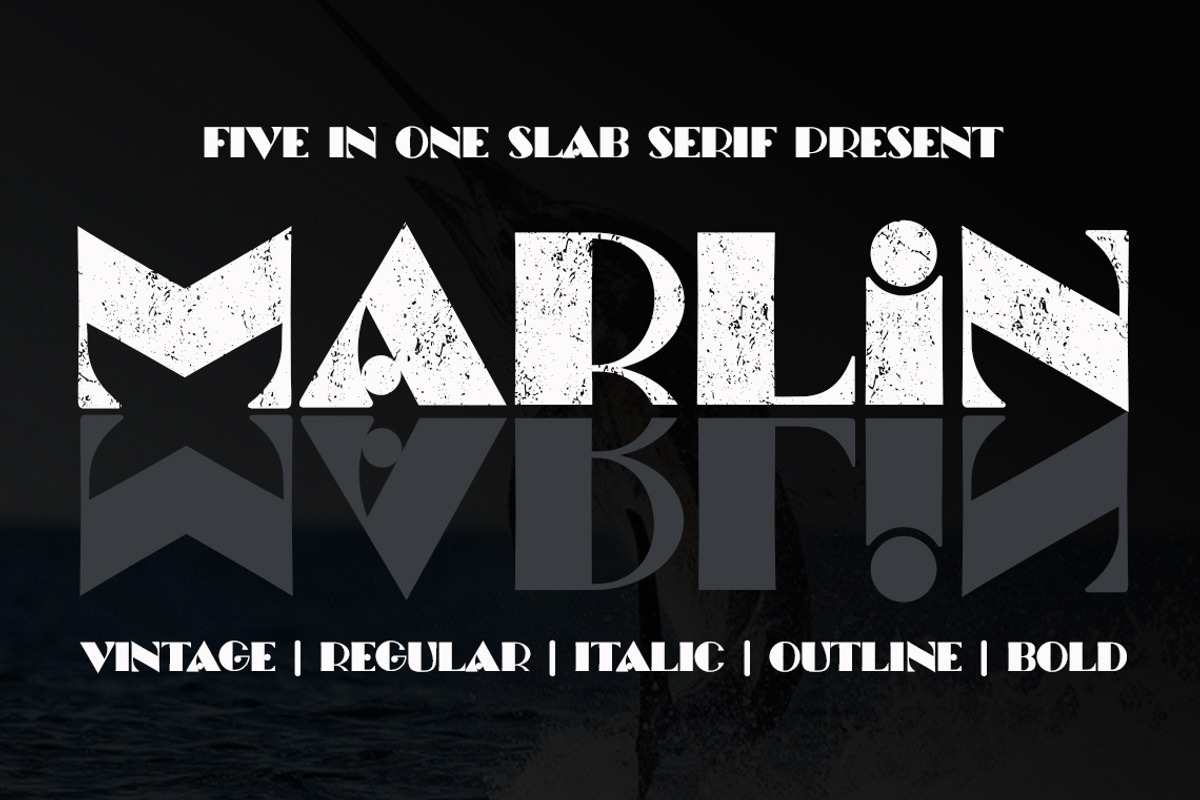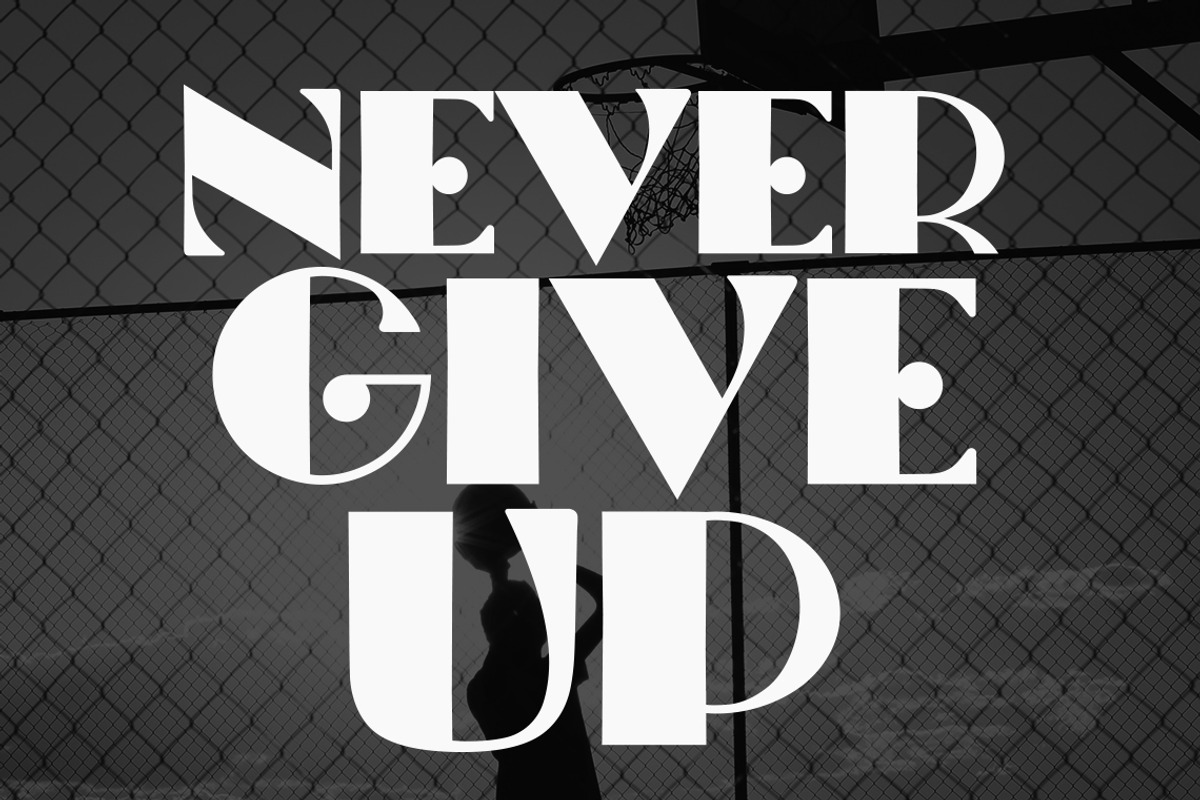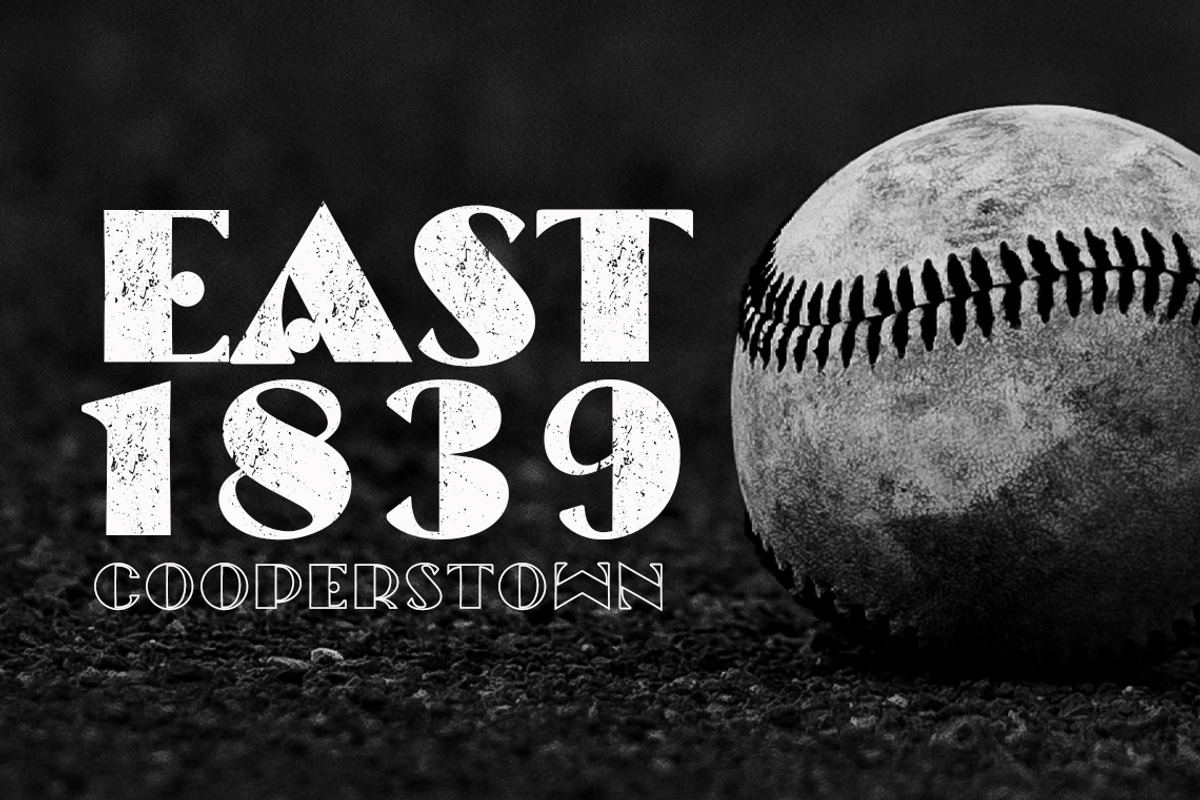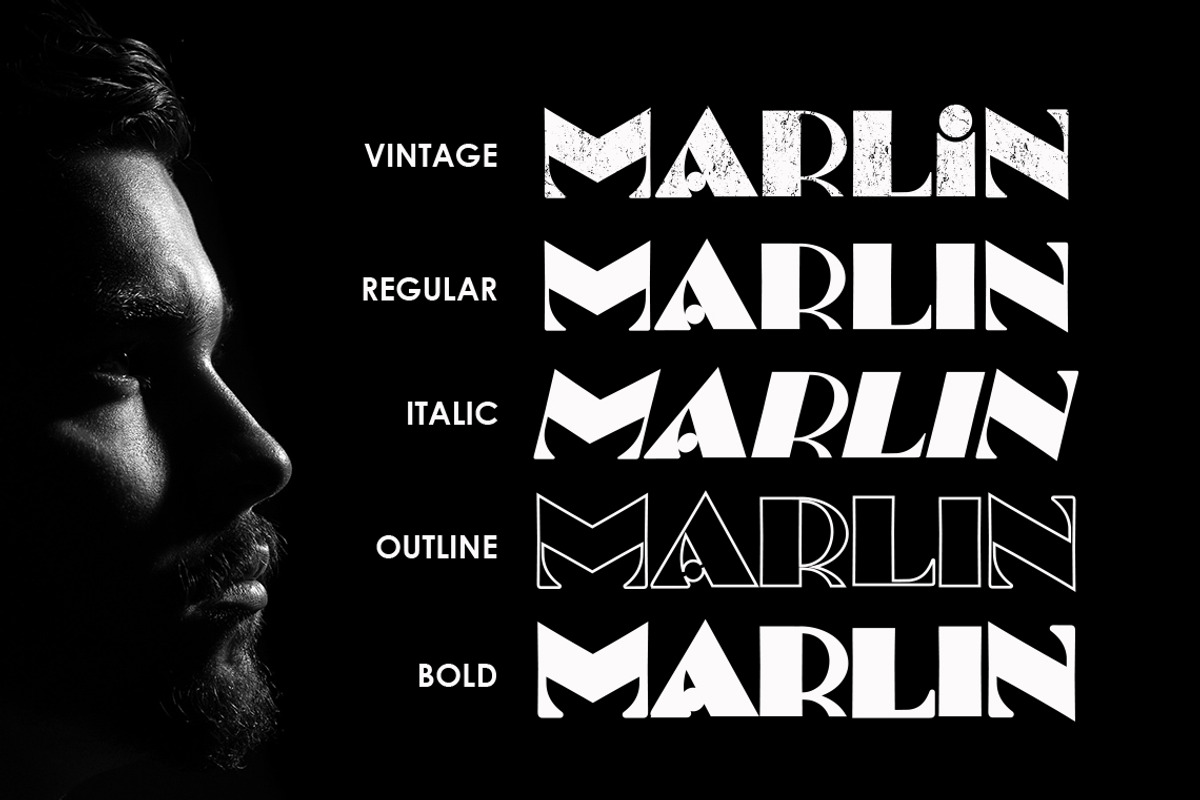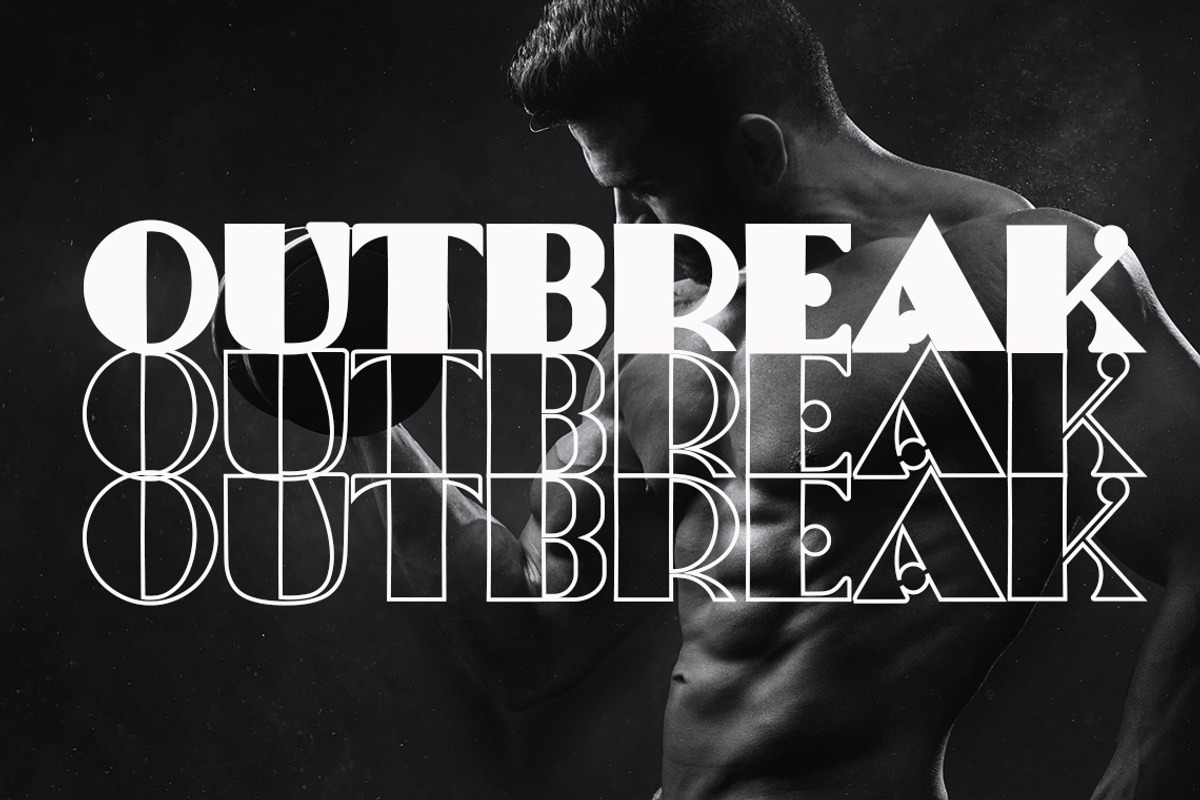
Marlin
Marlin slab serif inspired by marlin fish. Marlin font is a bold serif sporty design, vintage style with a touch of vintage style. There are 5 different styles that you can apply in your design projects. This font is built with solid foundations, strong visuals, old-school movement, and a modern minimalist style. Marlin is perfect for Jersey , athletic, poster, branding projects, Logo design, Clothing Branding, product packaging, vintage design, for magazine titles, and for something with the theme of sports, album title, etc
- Only Bold Font Display A-Z
- Stylistic Alternate